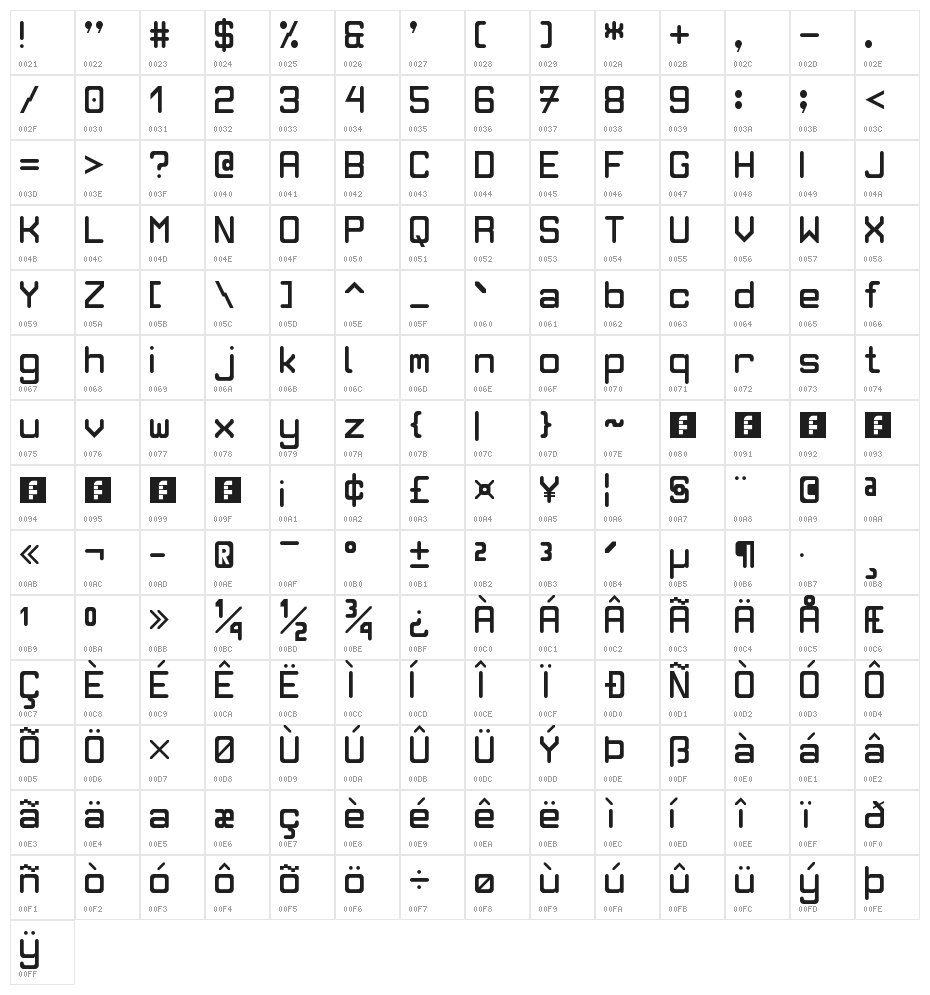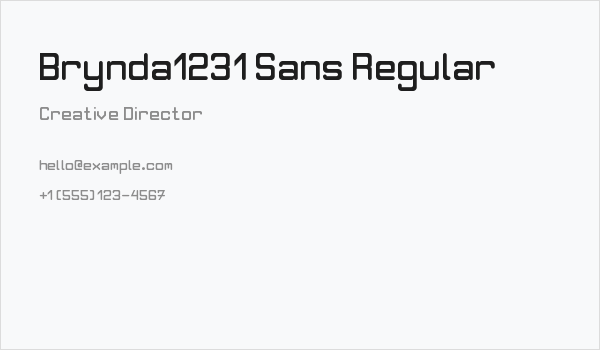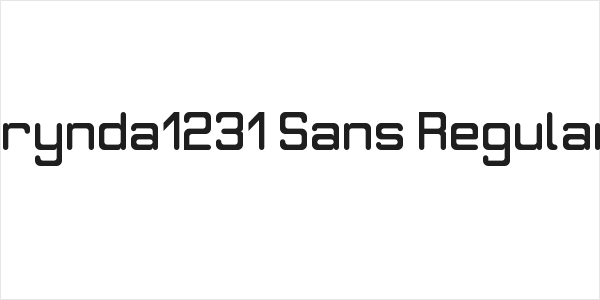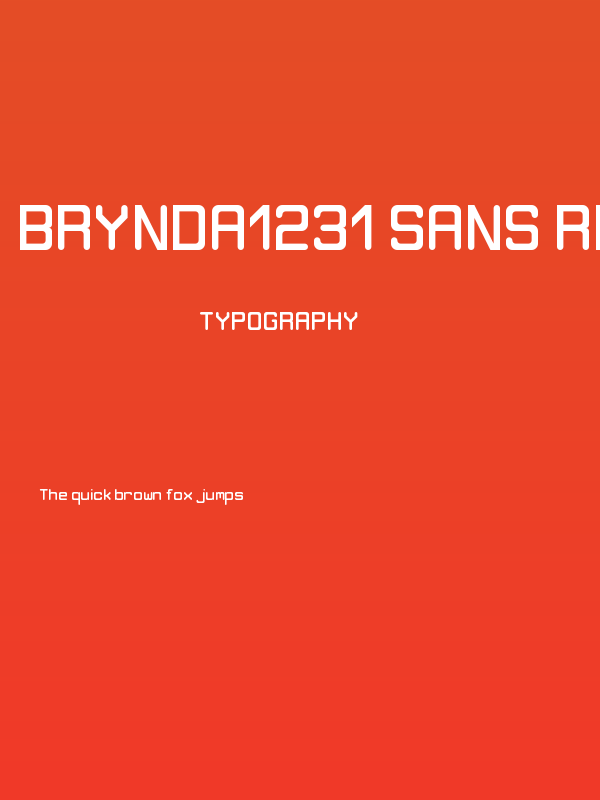
Brynda1231 Sans Regular Font
Brynda1231 Sans Regular Description
This font features a modern, geometric sans-serif style with rounded edges and a clean, streamlined appearance. The characters are evenly spaced, providing a balanced and harmonious look. The uppercase and lowercase letters maintain a consistent height, contributing to its uniformity. The numerals are clear and distinct, matching the overall aesthetic of the alphabet. Special characters are designed to complement the letterforms, ensuring readability and style consistency. This font is versatile, suitable for both digital and print media, and can be used effectively in various design contexts.
| Proposed Projects | Ideal for branding, web design, user interfaces, and advertising materials. |